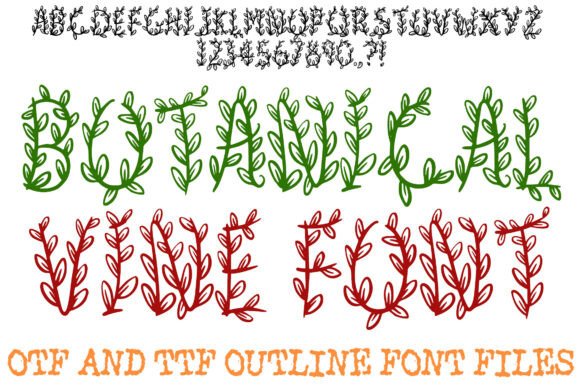
Unlocking the Charm of Botanical Vine Font
The Magic of Botanical Vine Font
The Botanical Vine Font is a hand-drawn display alphabet that embodies the elegance of nature. Its slender, graceful letterforms appear to grow and sprout with delicate leaves and climbing vines, giving any design a fresh, garden-inspired feel. This exquisite font is perfect for botanical branding, garden-themed invitations, eco-friendly product packaging, and whimsical digital scrapbooking.
Why Your Designs Will Bloom
The Botanical Vine Font offers several features that make it a standout choice for designers:
- Intricate Leafy Details: Every character is adorned with multiple hand-drawn leaves along its stems for a lush, botanical appearance 🌿
- Elegant Thin Strokes: The slender, curving lines of the letters provide a refined, cottagecore aesthetic 📝
- Climbing Ivy Aesthetic: The font’s unique design makes your typography look as though it is blooming right off the page 🌸
- ✨ The font’s organic feel adds a touch of whimsy to any design
- ✅ The intricate details make it perfect for projects that require a high level of elegance
- 🌿 The botanical theme is versatile and can be used for various design projects
While the Botanical Vine Font is a beautiful addition to any design, there are a few things to keep in mind:
- ⚠️ The font’s intricate details can be overwhelming if used in large blocks of text
- 🤔 Some characters may require manual adjustments to ensure proper spacing and alignment
The Botanical Vine Font was inspired by the beauty of nature and the elegance of botanical illustrations. Imagine a designer, surrounded by sketches of flowers and leaves, seeking to capture the essence of the natural world in a font. With each character carefully crafted to resemble delicate vines and leaves, the Botanical Vine Font is a testament to the power of nature-inspired design.
| What type of designs is the Botanical Vine Font best suited for? | The Botanical Vine Font is perfect for botanical branding, garden-themed invitations, eco-friendly product packaging, and whimsical digital scrapbooking. |
| Is the Botanical Vine Font available in different styles or weights? | The Botanical Vine Font is a single font file, but it features various glyphs and stylistic alternates that can be used to add variety to your typography. |